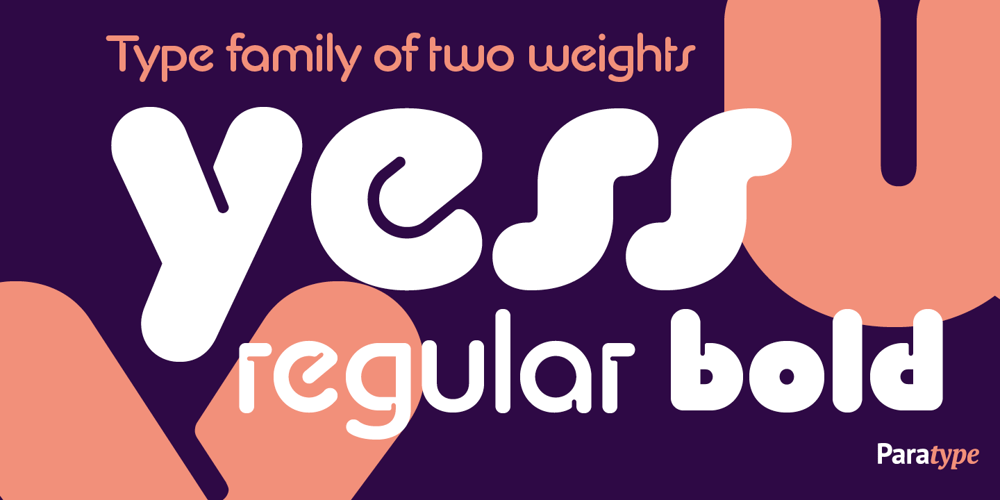
Yess
Yess font
Yess Font Family was designed by Oleg Karpinsky and published by ParaType. Yess contains 2 styles and family package options. Used in advertising posters for the Soviet state foreign trade company named ‘Soyuzchimexort’ in the early 1980s. Digital version was made for ParaType in 2007 with addition of light weight.